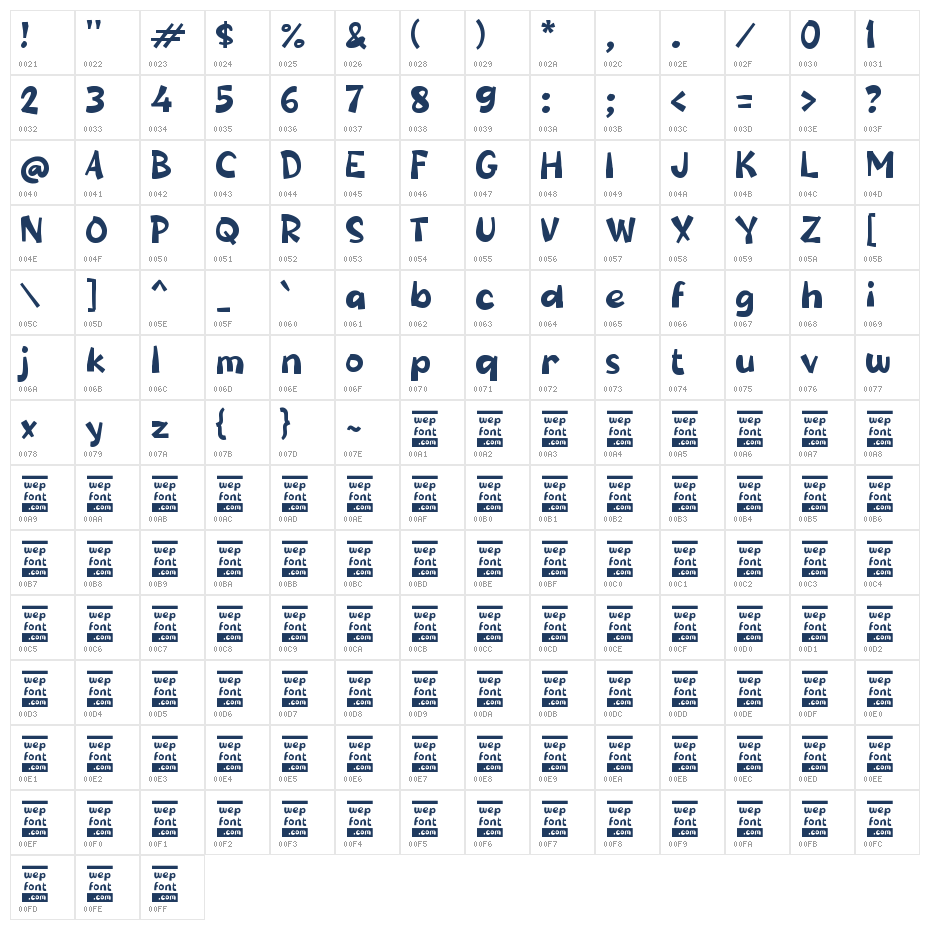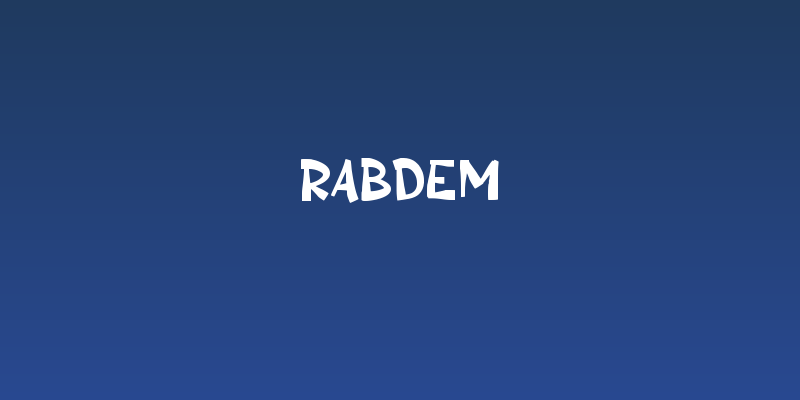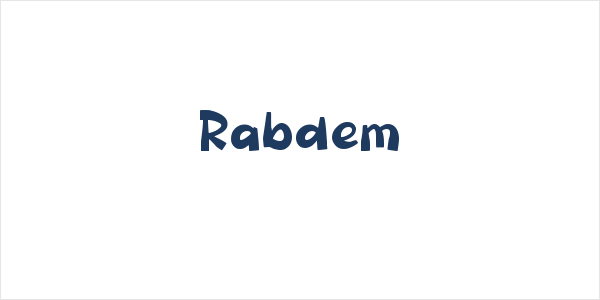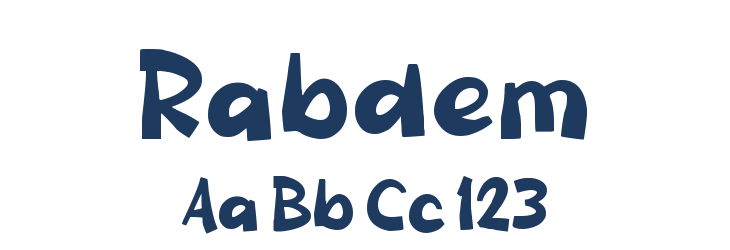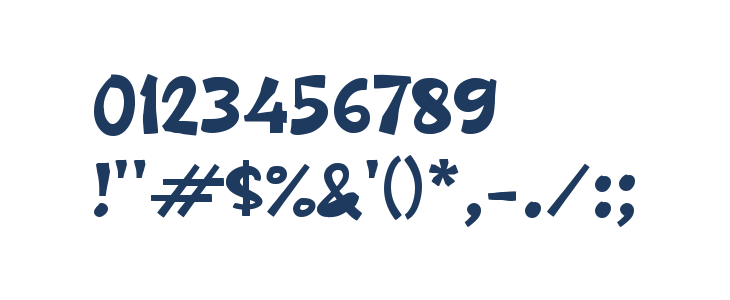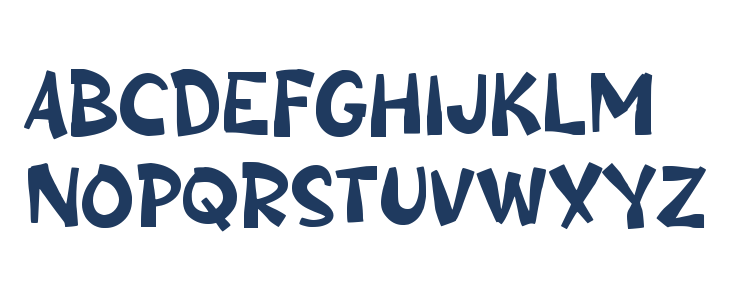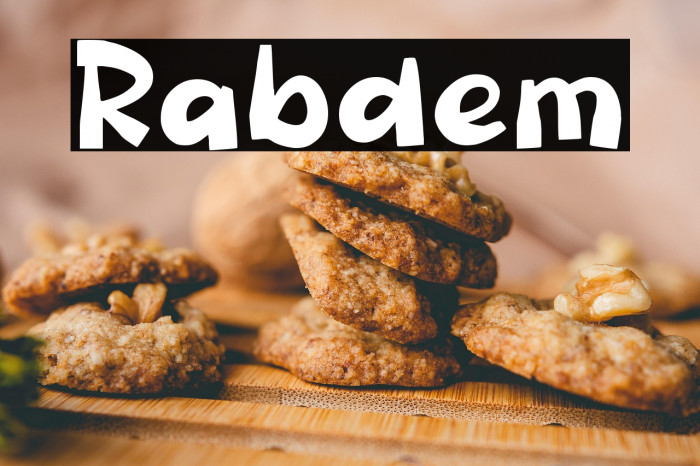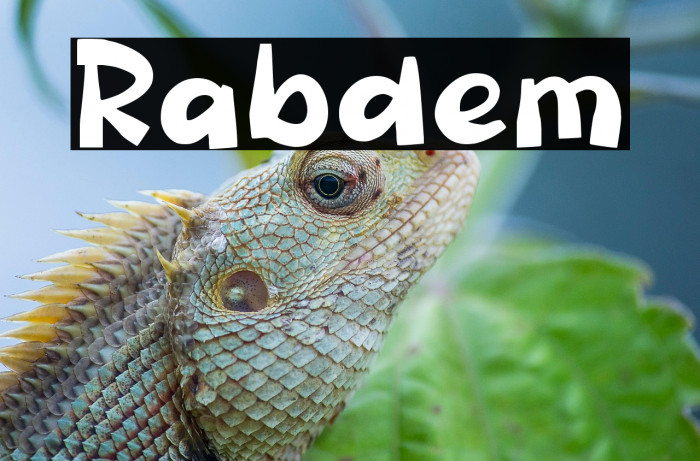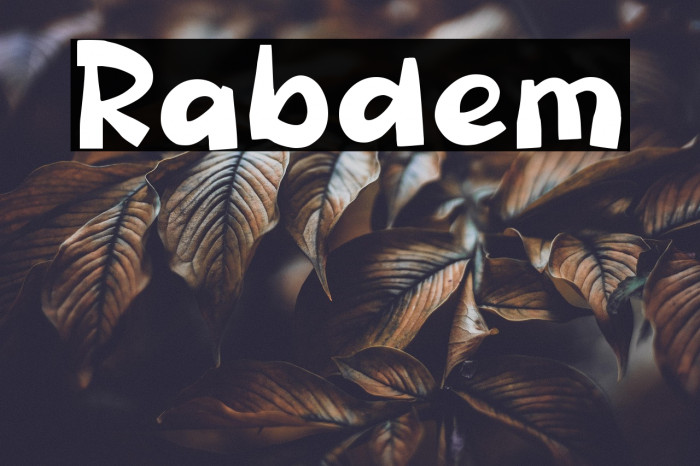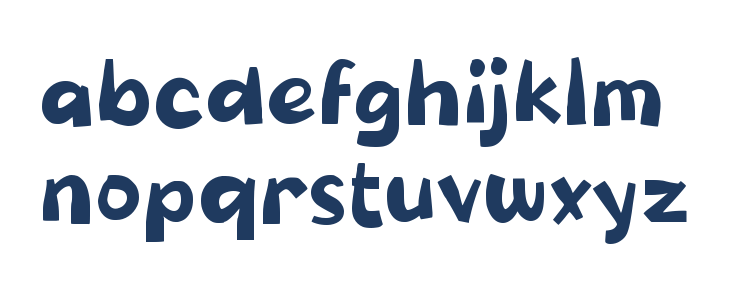
Rabdem Font
Rabdem Description
A playful, bold, and rounded sans-serif font with irregular, hand-drawn characteristics.
| Overall Style | Casual, Playful, Hand-drawn |
| Use Case | Headlines, Posters, Children's materials, Logos |